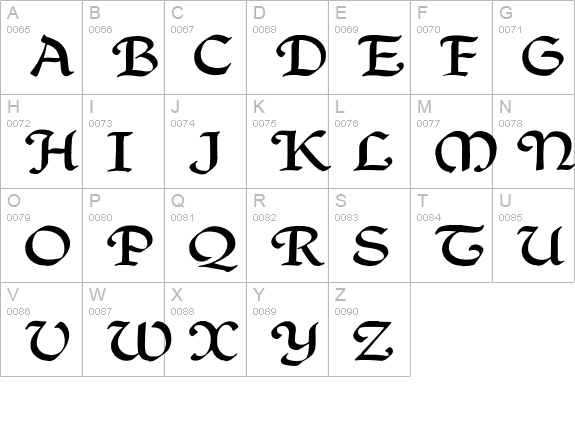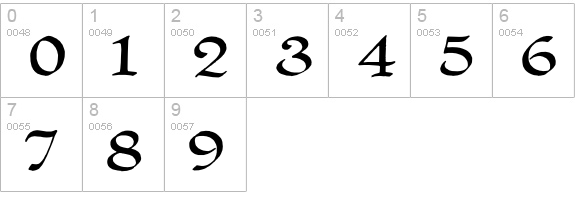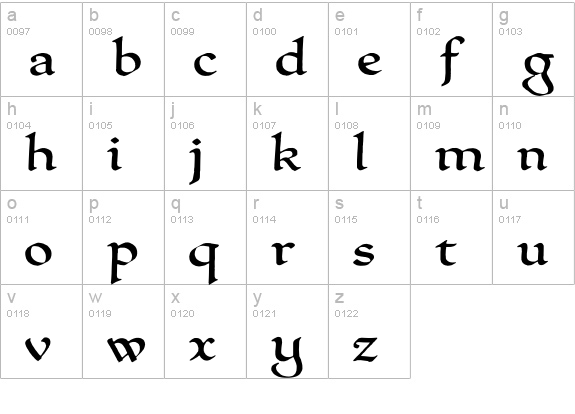
QuillPerpendicularWide Font Details
QuillPerpendicularWide font is a modern and stylish typeface that exudes sophistication and elegance. Its unique design features perpendicular lines that give it a distinct and eye-catching appearance. This font is perfect for projects that require a touch of creativity and flair, such as branding, logos, posters, and more. What sets QuillPerpendicularWide font apart is its versatility - it can be used for both headings and body text, making it a practical choice for various design needs. The wide spacing between letters adds a modern touch to any project, while still maintaining readability and clarity. Best of all, QuillPerpendicularWide font is available for free download at FontsMarket.com. This means you can easily access this stylish font and incorporate it into your design projects without any cost. Don't miss out on this fantastic opportunity to enhance your designs with the unique charm of QuillPerpendicularWide font.